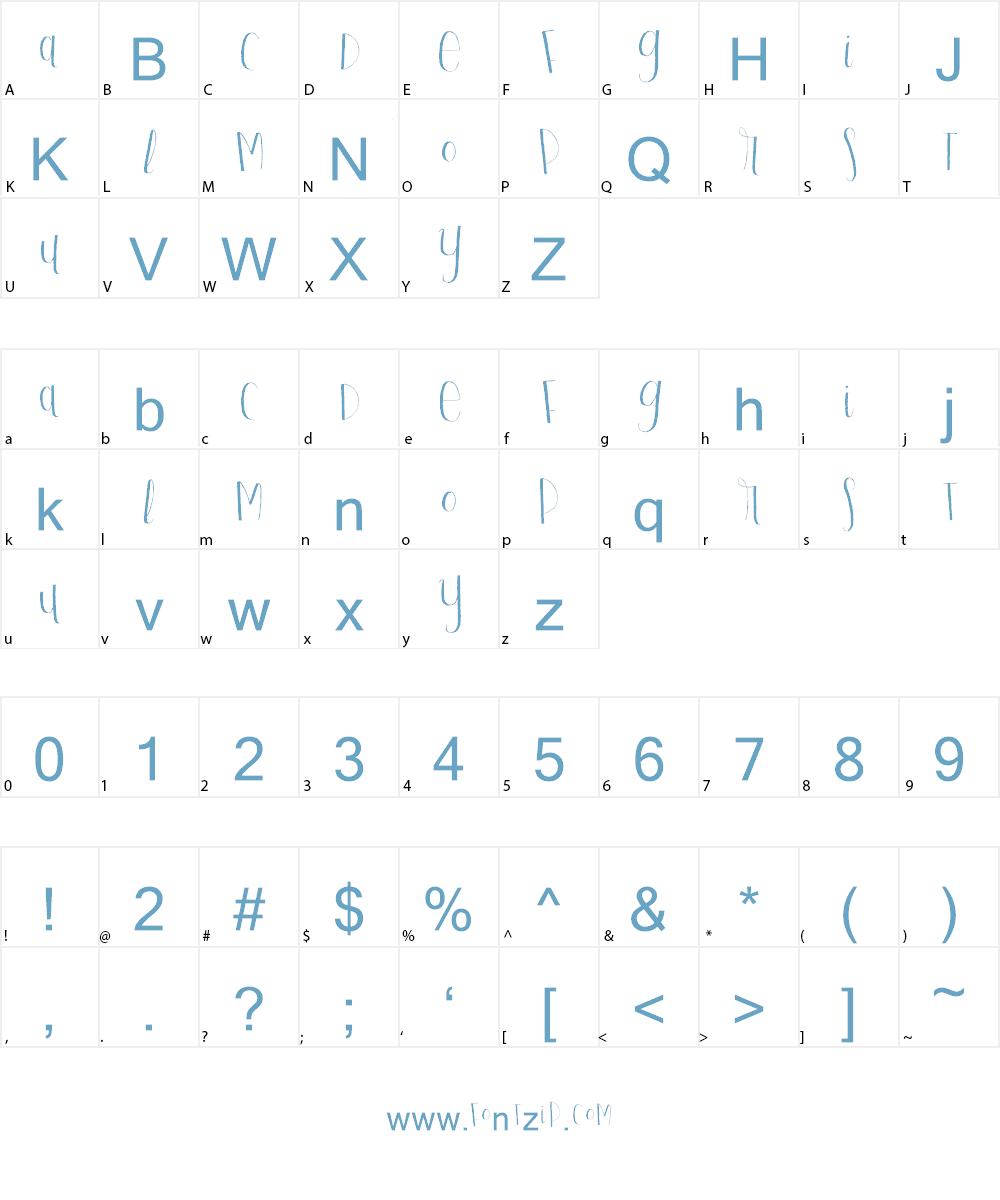
Playful Script Regular is a mixed-case calligraphy script for modern calligraphy projects. The font is perfect for filler text above and below a modern calligraphy word.
Playful Script was designed with a rough natural edge to create the illusion of natural hand-writing. Have a word with two identical letters in a row? Use the lowercase letter set to access a full set of alternate glyphs positioned at a different angle.